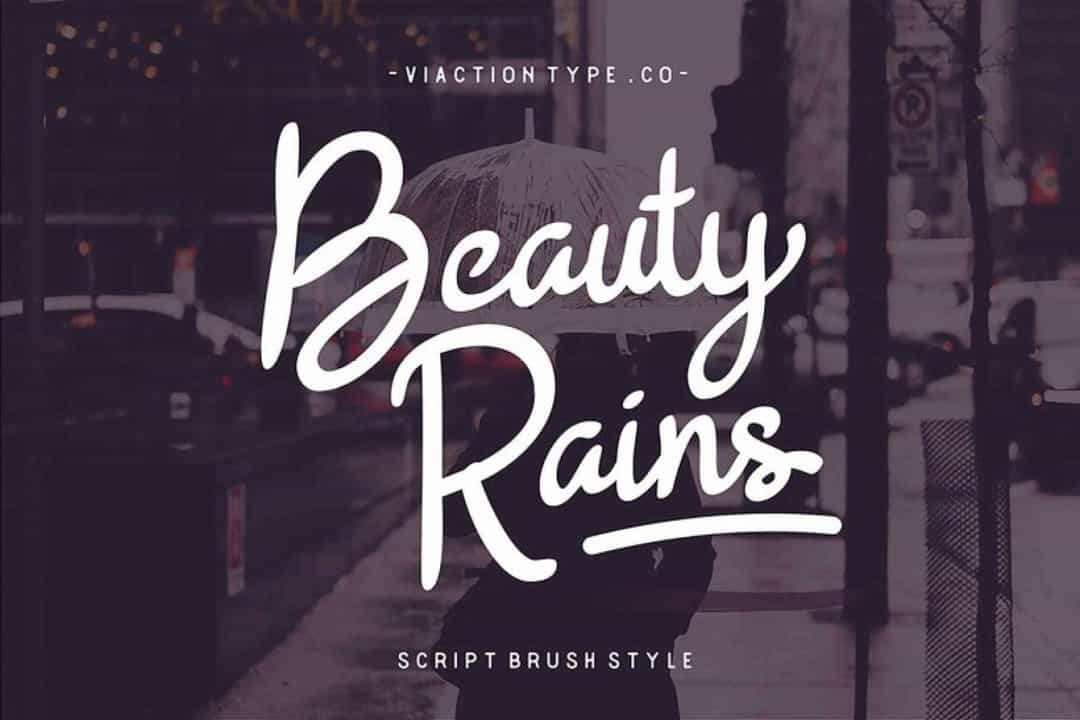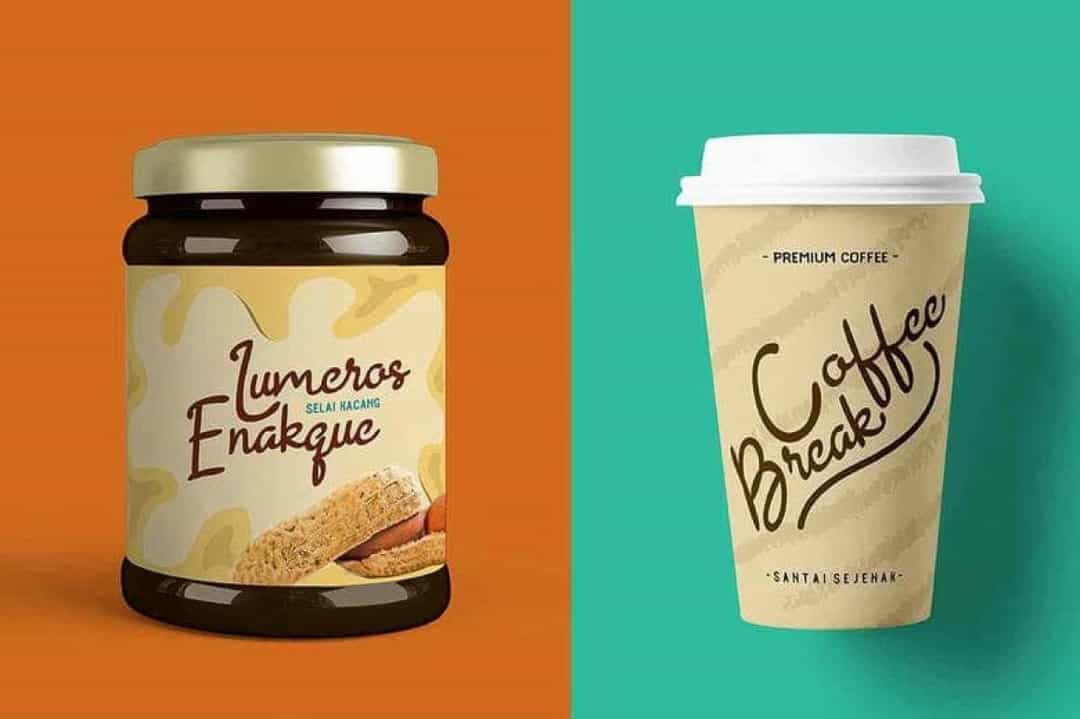
Discover Beauty Rains Script Font, part of the Commercial Brush collection—a versatile and unique font perfect for adding a personal touch to your projects. Download it for free and enjoy crafting designs with style, from invitations to social media posts. This font is available exclusively for personal use, giving you the freedom to create without limits. Unlock your creativity with Beauty Rains Script Font today!
Beauty Rains. Copyright (c) 2012, Viaction Type [Link]. Co is a unique original handwriting brush style font which is so natural and gorgeous – well suited to small-scale branding photography, magazine layouts, business card logos, posters among other uses. It is also facilitated with the opentype functions including a ligature feature, contextual alternates and multilingual support encoding.